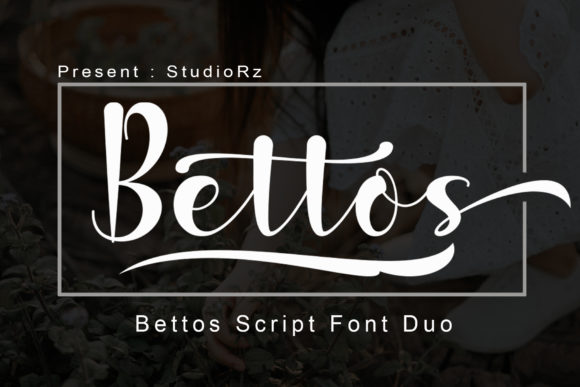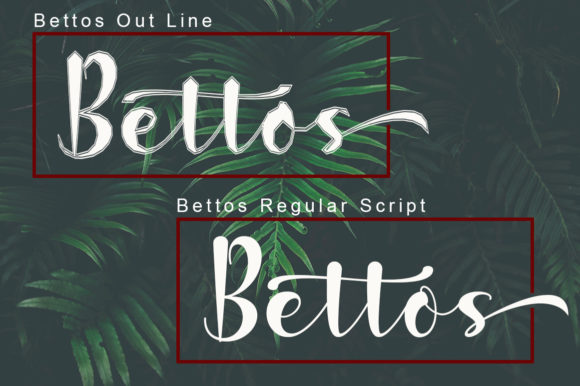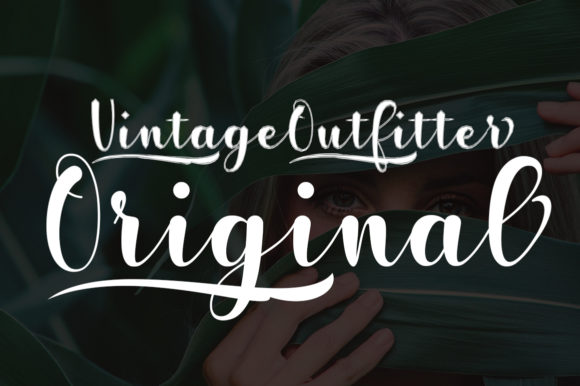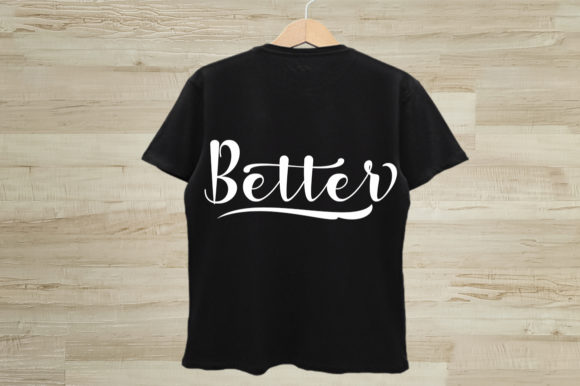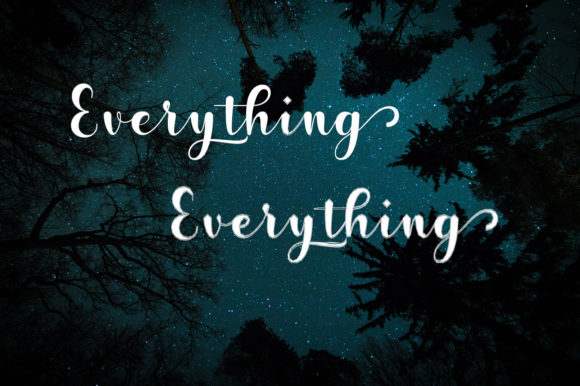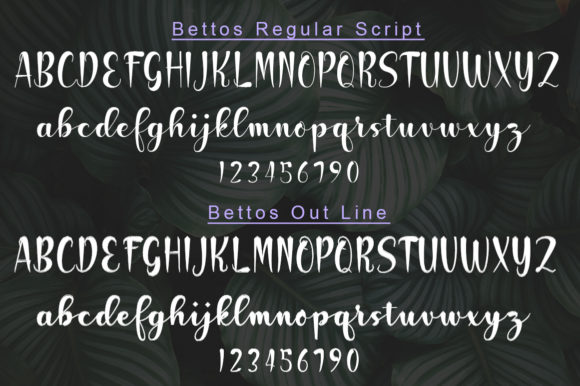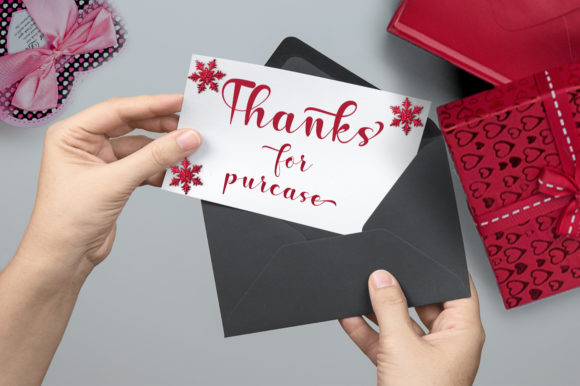
Bettos Font
About Bettos Font
The Bettos is an elegant handwritten script. It include amazing calligraphy with a varied base. Elegant, classic, and striking, are the perfect words to describe this beautiful font.
Included are a regular and outlined version, which can be used for signatures, logos, wedding invitations, t-shirts, letterheads, nameplates, labels, and much more!